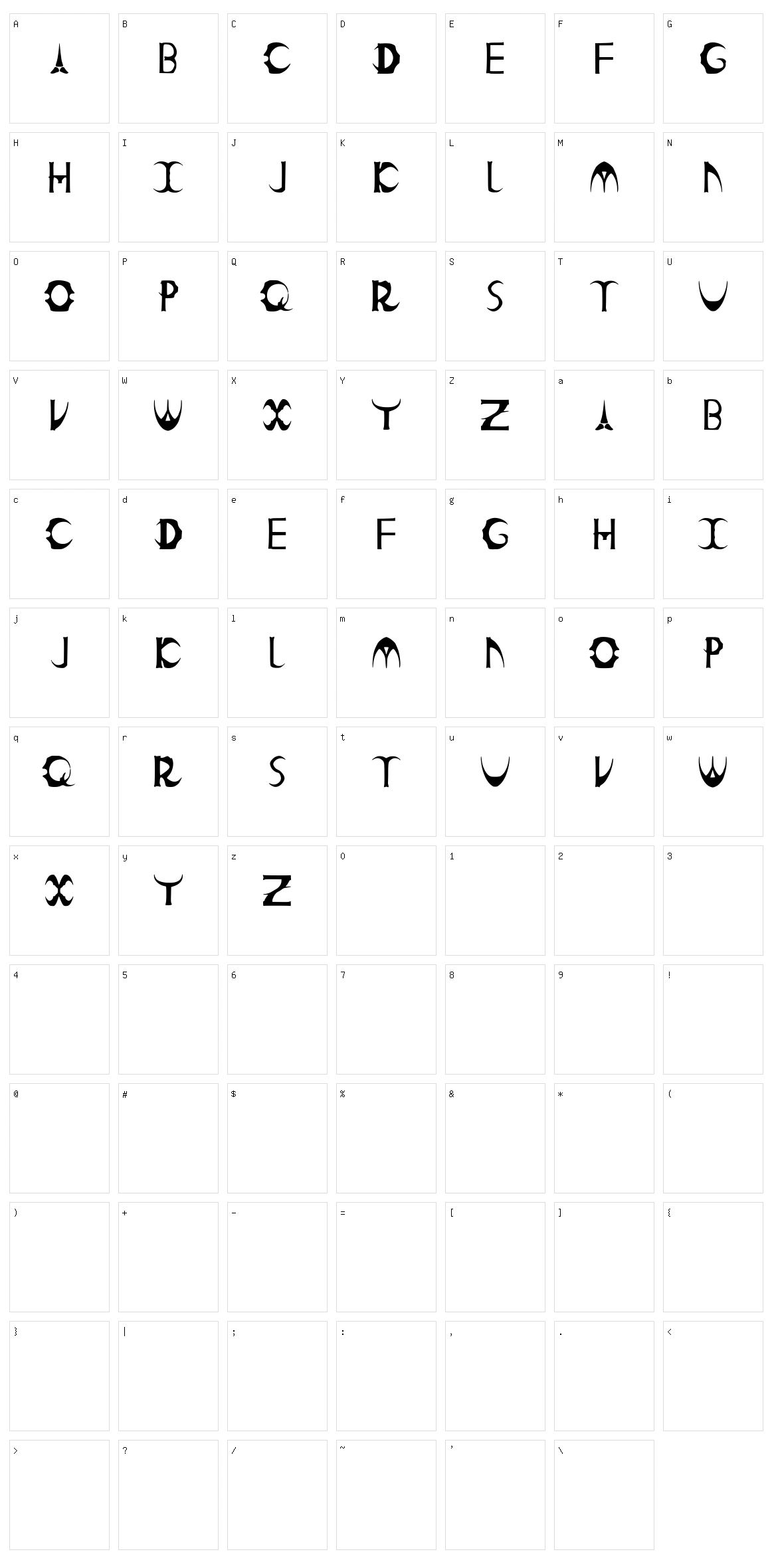
The free font Count Kinski is carefully designed by Kaleb Basey, showcasing a thoughtful balance of creativity and usability and belongs to the Gothic font family. When you download the ZIP file, it contains only 99.81 KB of font files, making it lightweight and quick to download. Please review the license details below to understand permitted usage and distribution rights. If license information is not available, we recommend using this font for personal projects only or contacting the author directly for commercial usage permissions.